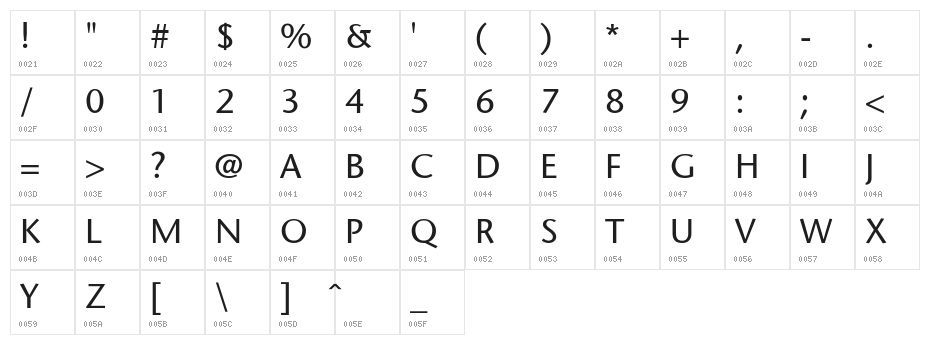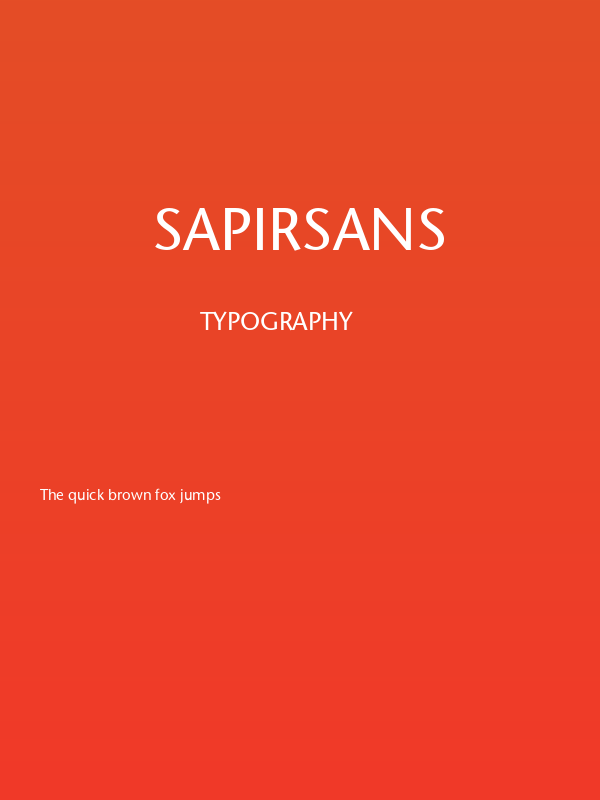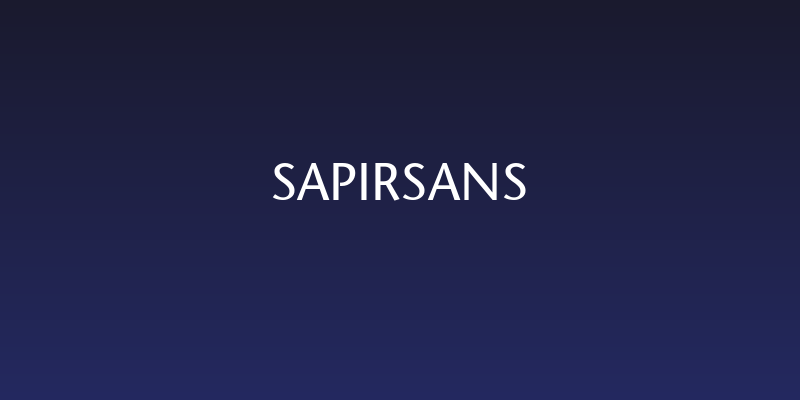
SapirSans Font
SapirSans Description
This font features a clean and modern sans-serif design, characterized by its smooth curves and balanced proportions. The uppercase letters are bold and assertive, while the lowercase letters maintain a friendly and approachable appearance. The numerals are clear and easy to read, making them suitable for various applications. Special characters are well-defined, ensuring versatility in usage. Overall, the font exudes a contemporary and professional feel, ideal for both digital and print media.
Proposed ProjectsIdeal for branding, web design, advertising, and editorial layouts.